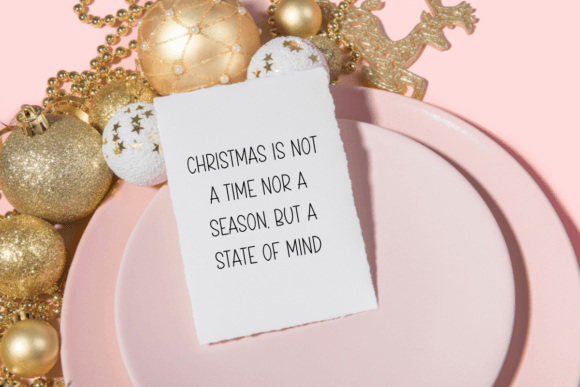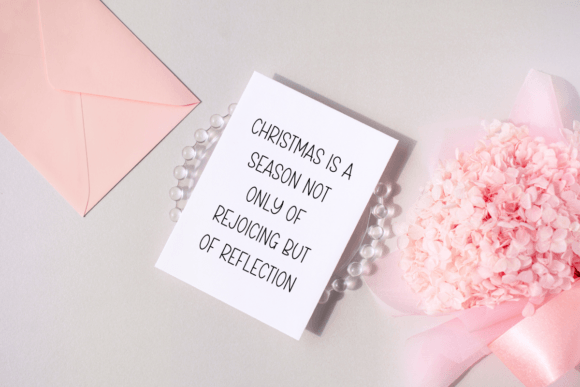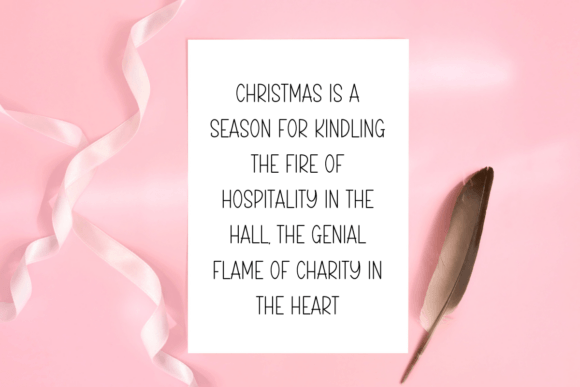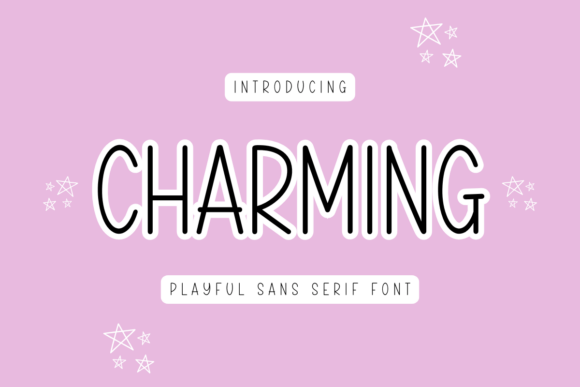
Embark on a Magical Typography Journey with Charming: The Ultimate Christmas-Themed Font
Are you looking for a font that can add a touch of festive flair to your creative projects? Look no further than Charming, a delightful Christmas-themed sans serif font that’s perfect for designers, crafters, and educators alike. With its playful and vibrant letters, Charming is sure to bring joy and holiday spirit to every page.
A Font for Every Creative Endeavor
Whether you’re creating teaching resources, planning a scrapbook, or crafting warm greeting cards, Charming is the perfect font for you. Its adaptability and versatility make it suitable for a wide range of projects, from KDP books and journals to notes and memos. With Charming, you can turn dull texts into merry manuscripts and add a festive flourish to every page.
A Favorite Among Educators
Charming has become a favorite among educators, who use it to breathe new life into their teaching materials. By adding a touch of festive flair to lesson plans, worksheets, and activity sheets, educators can create engaging and interactive learning experiences for their students. With Charming, educators can:
- Transform dull texts into fun and interactive learning materials
- Create eye-catching headings and titles that grab students’ attention
- Add a touch of holiday spirit to classroom decorations and displays
Perfect for Personal Projects
Charming is not just limited to educational projects. Its playful and vibrant letters make it perfect for personal projects, such as:
- Creating festive scrapbook pages and photo albums
- Designing warm and inviting greeting cards
- Adding a touch of holiday spirit to journals and planners
The Power of Joyful, Vibrant Letters
Charming’s unique and playful design makes it stand out from other fonts. Its joyful and vibrant letters are sure to add a touch of festive flair to every project. With Charming, you can:
- Create eye-catching headings and titles that grab attention
- Add a touch of holiday spirit to every page
- Transform dull texts into merry manuscripts
Unleash Your Creativity with Charming
Whether you’re a designer, crafter, or educator, Charming is the perfect font for you. Its adaptability, versatility, and playful design make it suitable for a wide range of projects. With Charming, you can:
- Unleash your creativity and add a touch of festive flair to every project
- Transform dull texts into merry manuscripts
- Create engaging and interactive learning experiences for students
Key Features of Charming:
- Christmas-themed sans serif font
- Playful and vibrant letters
- Adaptable and versatile design
- Perfect for teaching resources, KDP books, journals, and notes
- Suitable for personal projects, such as scrapbooking and crafting